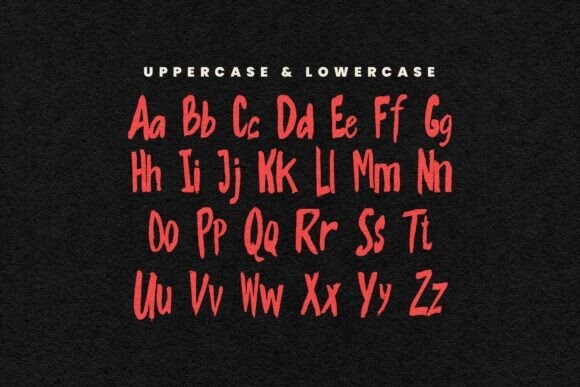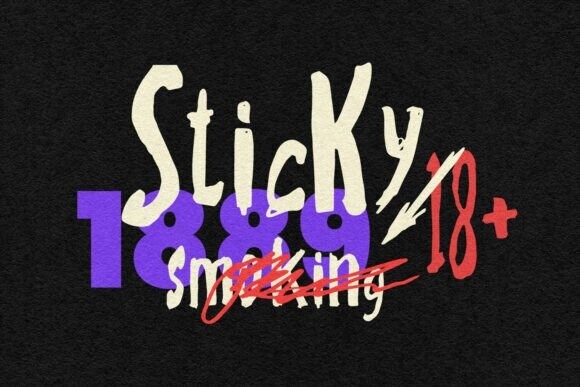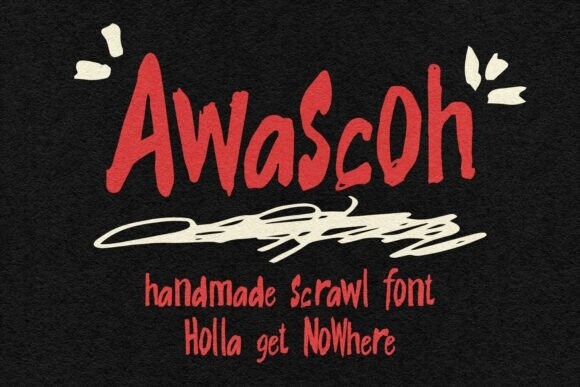
Awascoh Font
Designer: Maulana Creative
Awascoh Font is a playful and stylish handwritten scrawl font. It has a natural, imperfect look, perfect for creative projects like logos, greeting cards, or social media posts. Its unique and friendly style adds charm and personality to your designs!